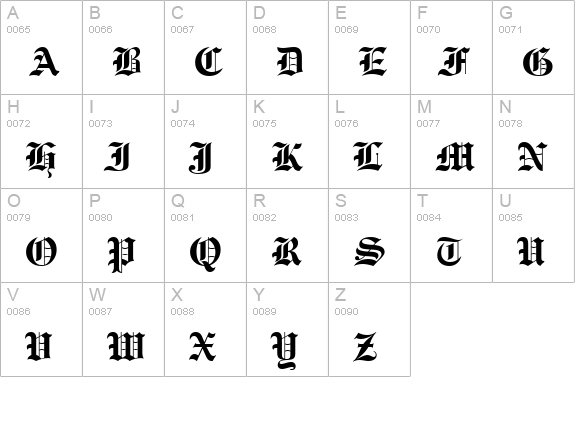
Engravers' Old English Bold BT Font Details
Engravers' Old English Bold BT is a strong, high-contrast variant in the Engravers' typeface family \xE2\x80\x94 well suited to headlines, attention-grabbing titles, and strong calls-to-action.
Engravers' Old English Bold BT font is a timeless and elegant typeface that exudes sophistication and class. Its intricate calligraphic details and bold strokes make it perfect for adding a touch of old-world charm to any design project. This font is ideal for creating vintage-inspired logos, invitations, and signage that demand attention. The Engravers' Old English Bold BT font is not only visually striking but also versatile, making it suitable for a wide range of applications. Whether you're designing a wedding invitation or a menu for a high-end restaurant, this font will elevate your design to the next level. The best part is that Engravers' Old English Bold BT font is available for free download at FontsMarket.com. This means you can easily access this premium font without having to break the bank. Don't miss out on the opportunity to enhance your design projects with the timeless beauty of Engravers' Old English Bold BT font. Download it today and start creating stunning visuals that will leave a lasting impression.